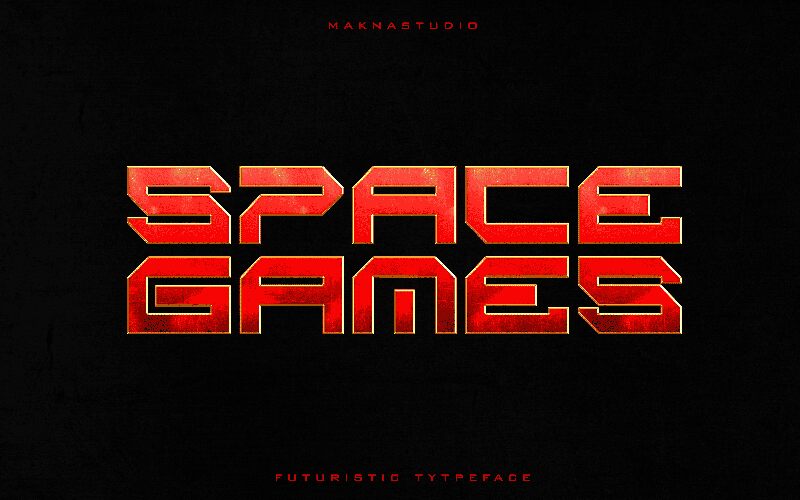
Space Games
Space Games font by MaknaStudio is a futuristic display font with bold weight and expanded width. It has a geometric construction, and all its characters carry sharp edges that produce symmetry through identical angles and smooth curves. The typeface is readable to the core, but it has enough stylish details to put it under the decorative category.
Among suitable use cases are poster design, branding/visual identity development, logo design, labeling/packaging/common product design, user/interface web design, game/app development, header/titles in articles/books/magazines/newspapers/newsletters/blogs or websites.